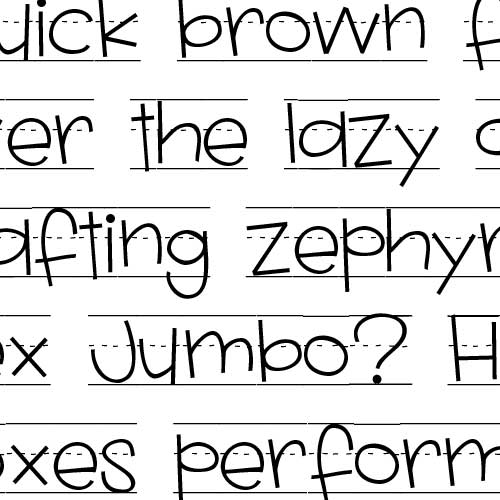
ZP Class Clown Dash - FN
This hand-written print is very youthful and bouncy and has dotted lines like they use in primary school. Use the underscore for blank lines.